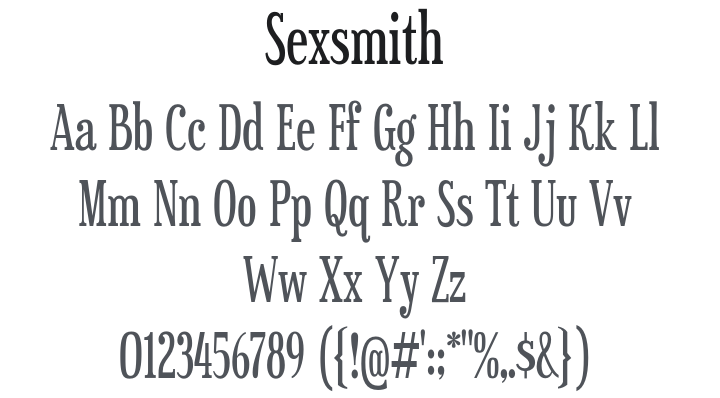
Sexsmith Font
About Sexsmith
Sexsmith is a tall, condensed clarendon-style serif with sharp, elegant serifs and strong thick-thin stroke contrast — its long, narrow proportions give it a refined, editorial authority that feels both classic and quietly sophisticated. The condensed stance makes it ideal for tight headline spaces. Perfect for newspaper mastheads, book covers, editorial design, literary branding, and any display use needing dignified, old-press character.